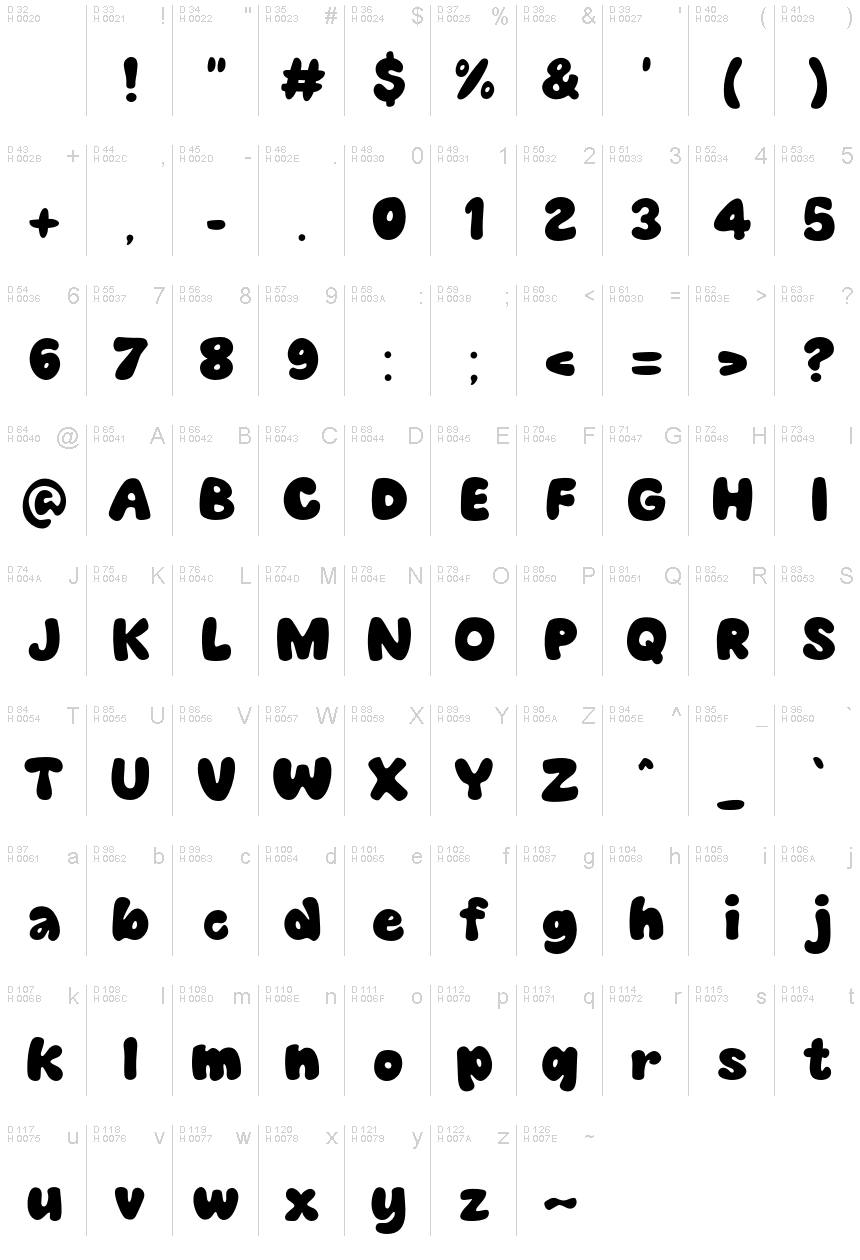
Groovy Vibes
Groovy Vibes font, designed by MJType, radiates a playful spirit that instantly captures attention. Its bold appearance and whimsical curves exude an unmistakable sense of joy and creativity. This display font thrives on a vibrant energy, making it perfect for designs that aim to evoke happiness and light-heartedness.
Visually striking, each letter is imbued with a personality that feels both inviting and dynamic. The rounded forms lend a soft touch, while the bolder elements add an exciting punch. Groovy Vibes effortlessly enhances everything from eye-catching posters to vibrant branding projects or social media graphics.
Whether used in event flyers or children’s book covers, this font promotes an atmosphere of fun and positivity, making it a versatile addition to any designer's toolkit. Its unique aesthetic appeals to audiences seeking conscious connection through joyful design.